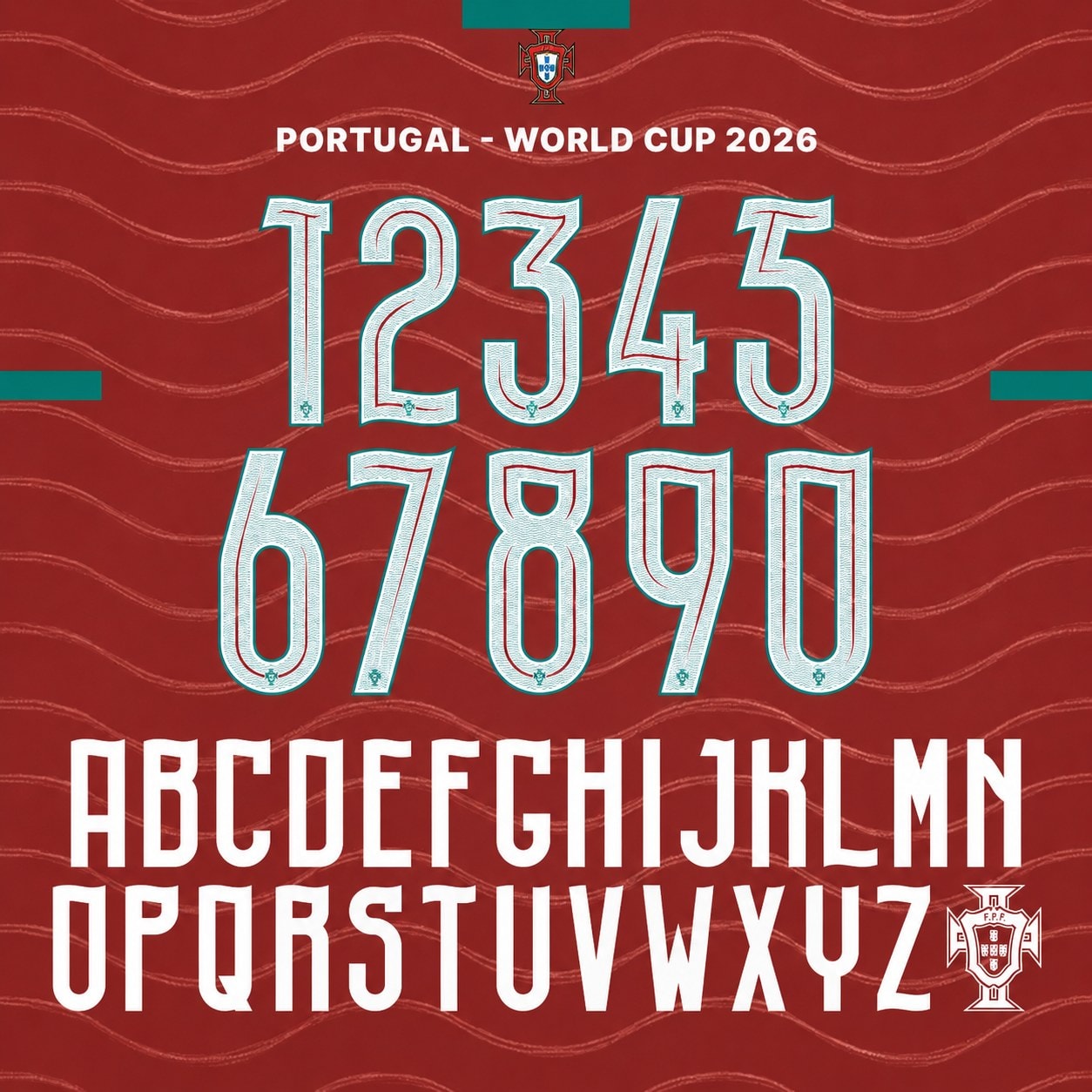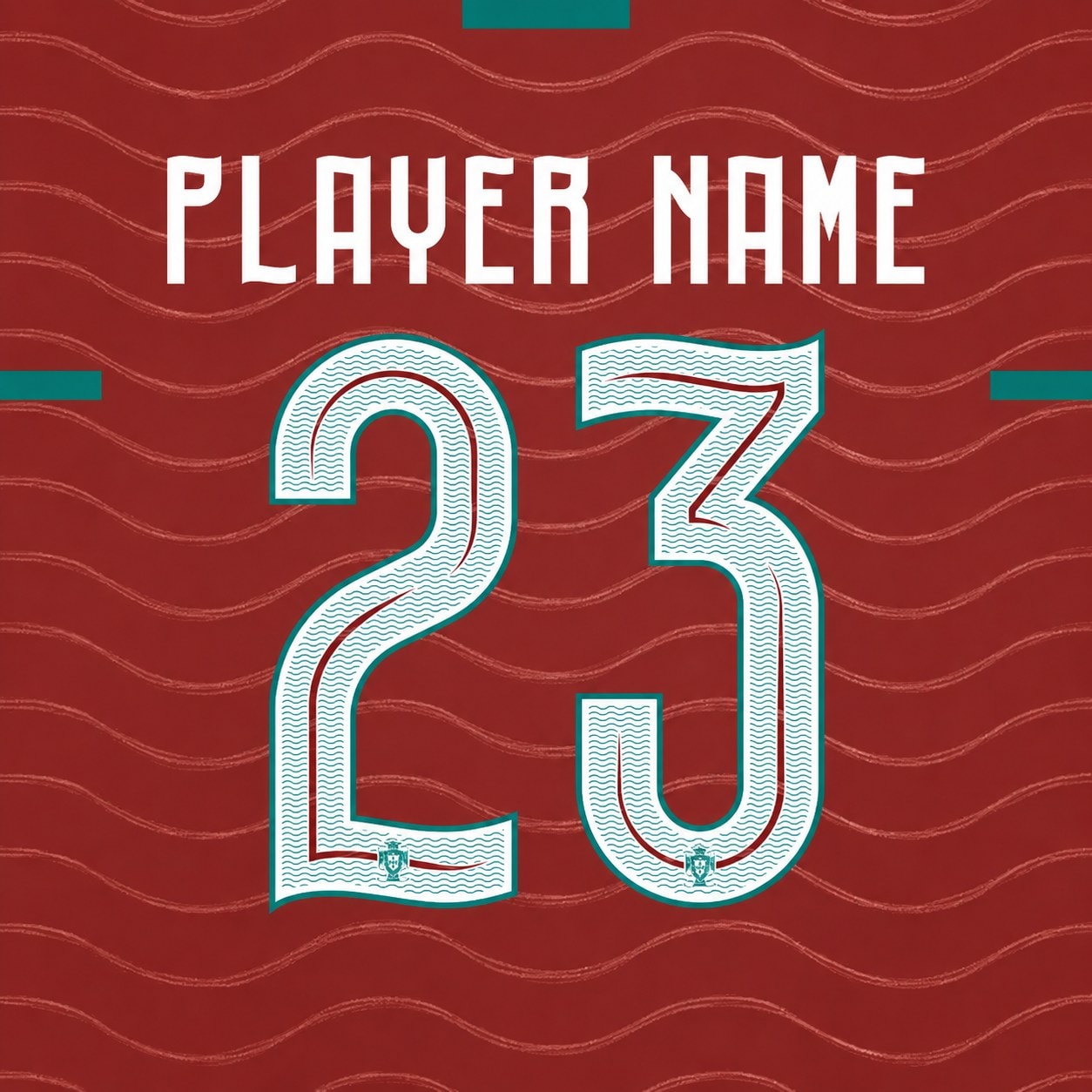
Complete Portugal World Cup 2026 font set — every letter and every number in one kit, in the lettering style of the 2026 national team shirt, white-and-teal colourway as shown.
- Full set included: all letters A–Z + all numbers 0–9, exactly as shown
- Fine crest detailing inside the numbers